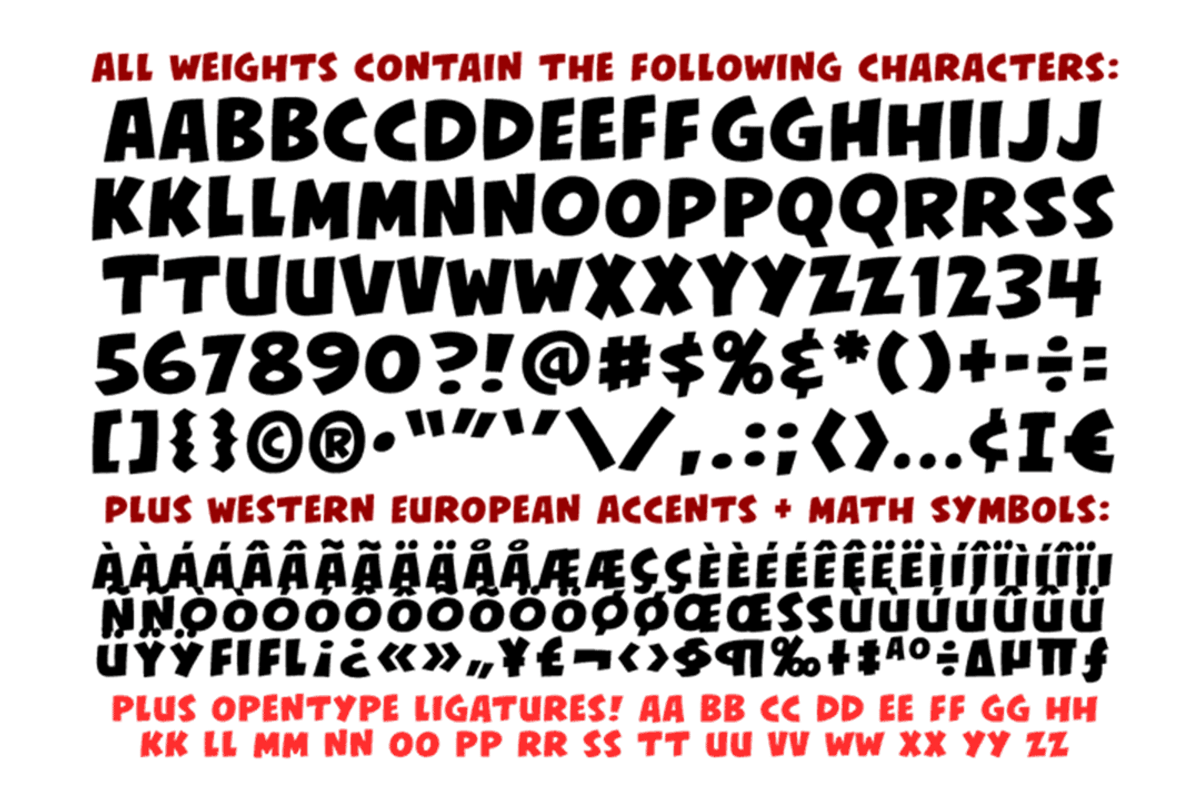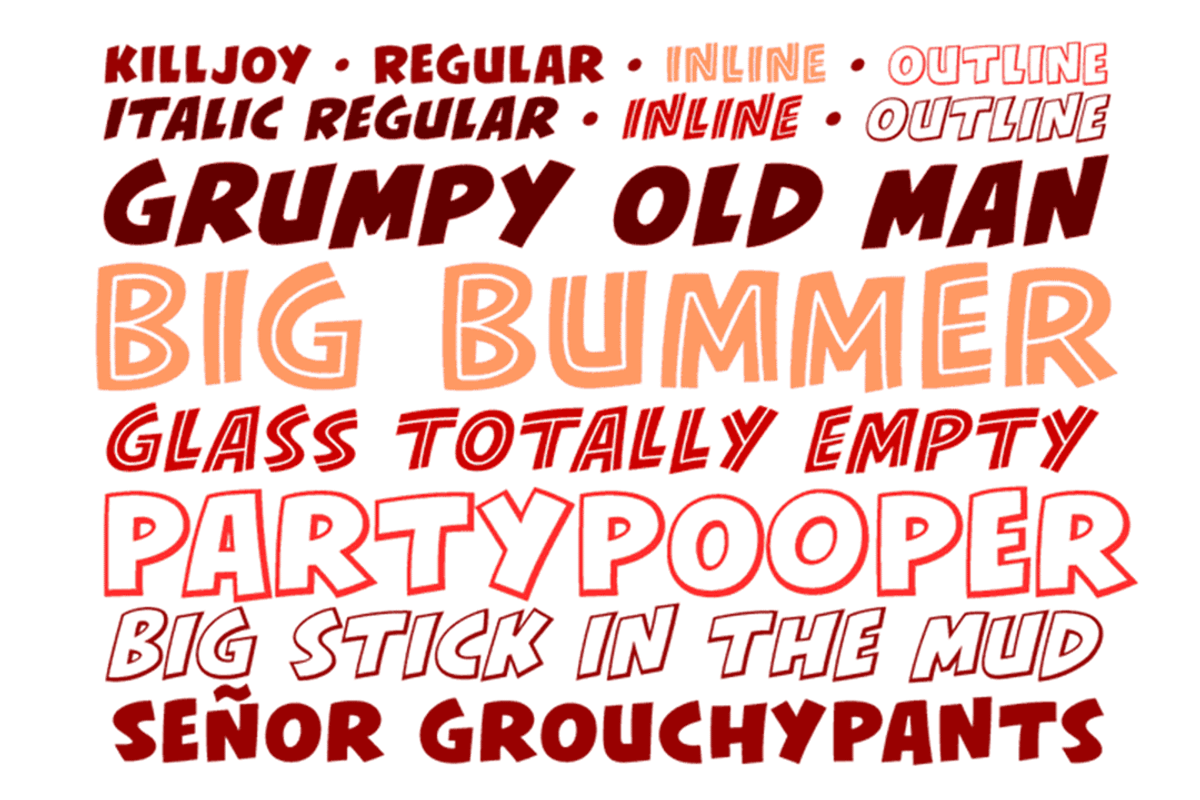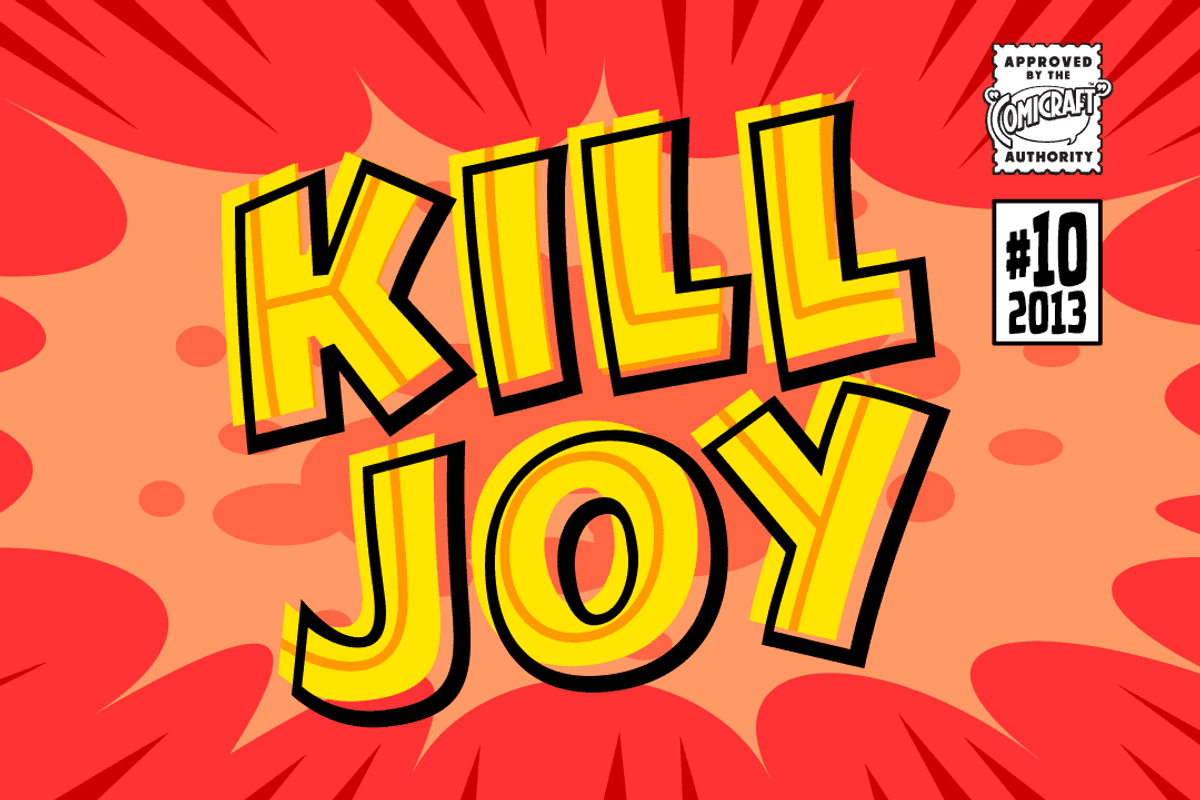
Killjoy
Killjoy by Comicraft Fonts is a font selected for branding, posters, packaging, typography.
Why Killjoy is worth a look
Killjoy by Comicraft Fonts fits naturally into Branding, posters, packaging, typography.